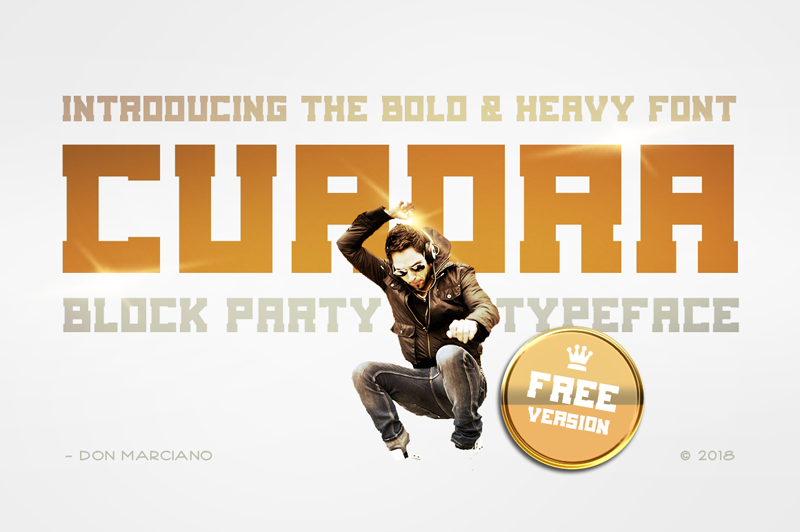
Font name: | Cuadra |
Author: | JuanMikes |
Note by JuanMikes | |
A bold and heavy display font inspired by the party at night lifestyle from the urban scene crowd, it comes in .OTF format. |